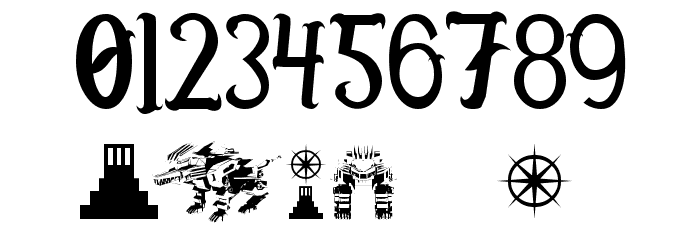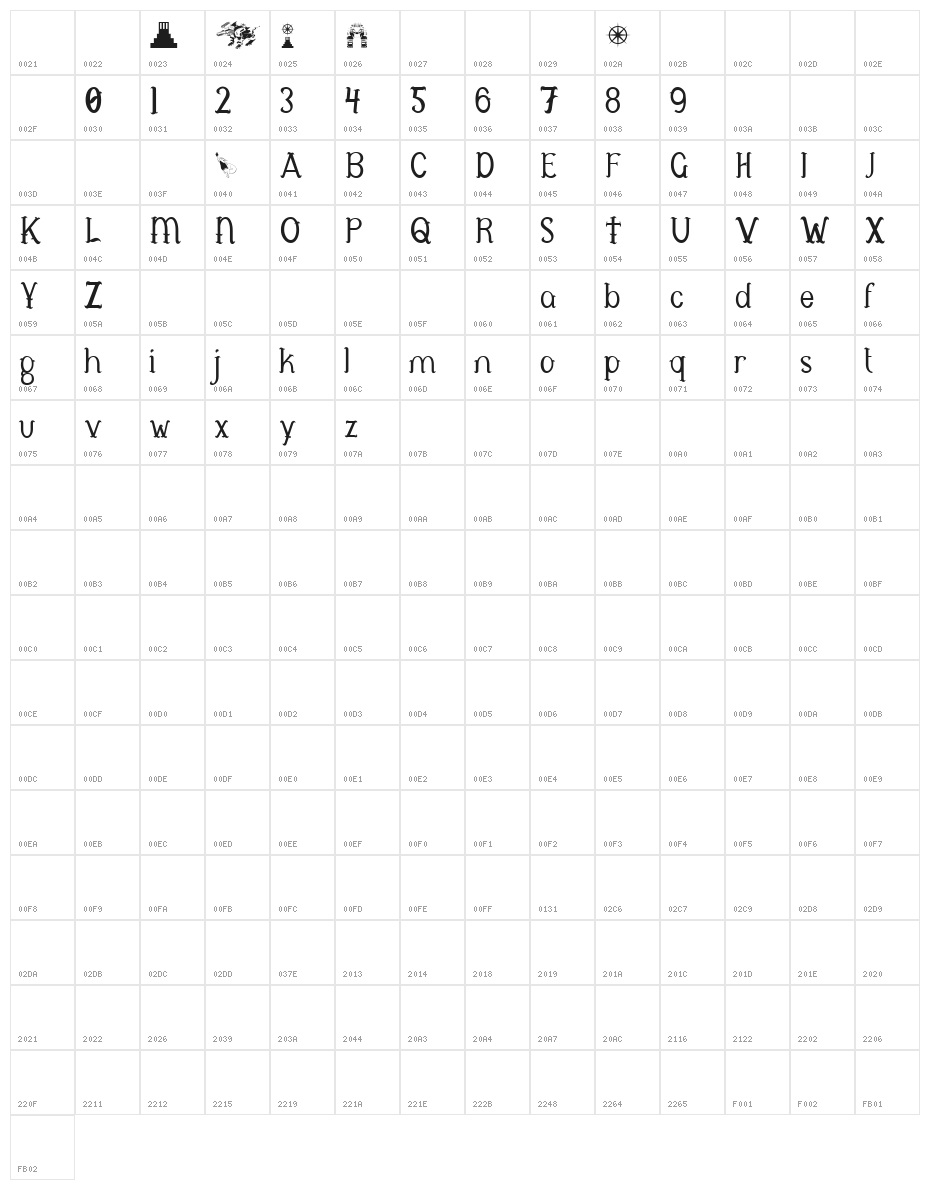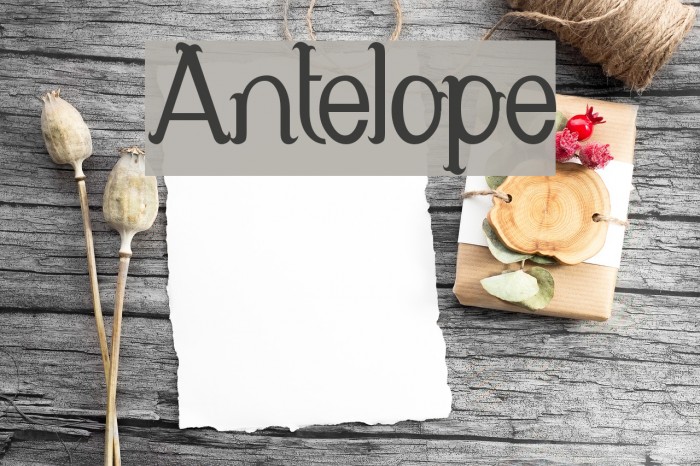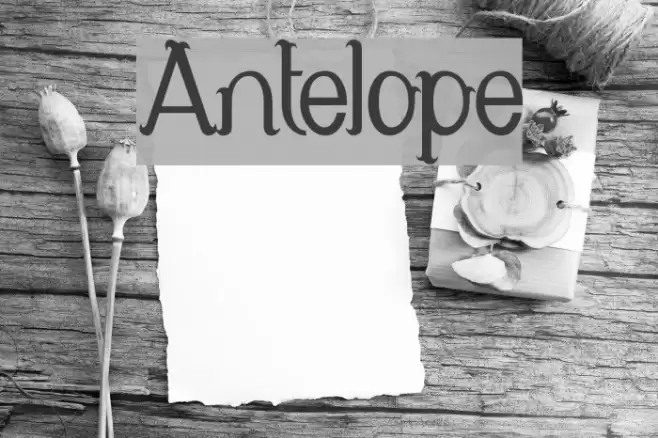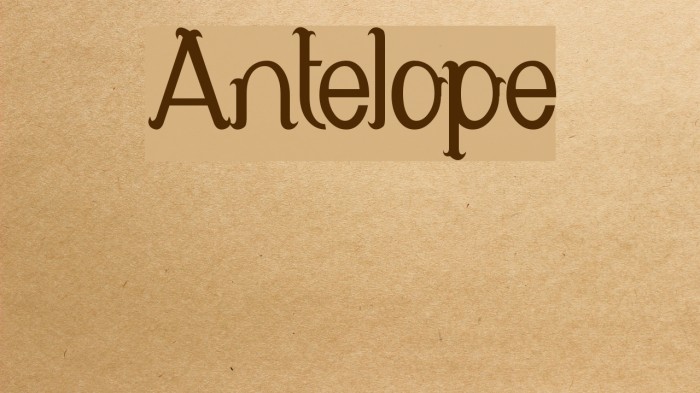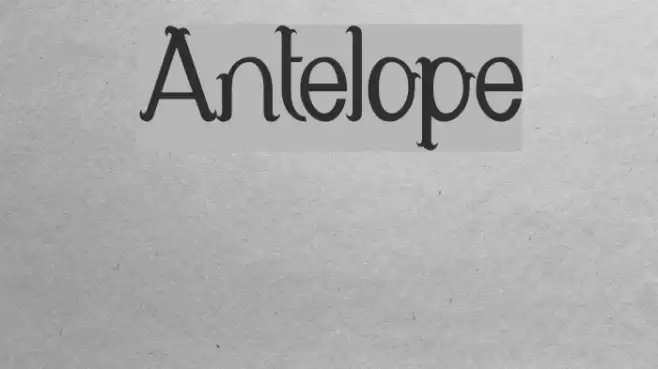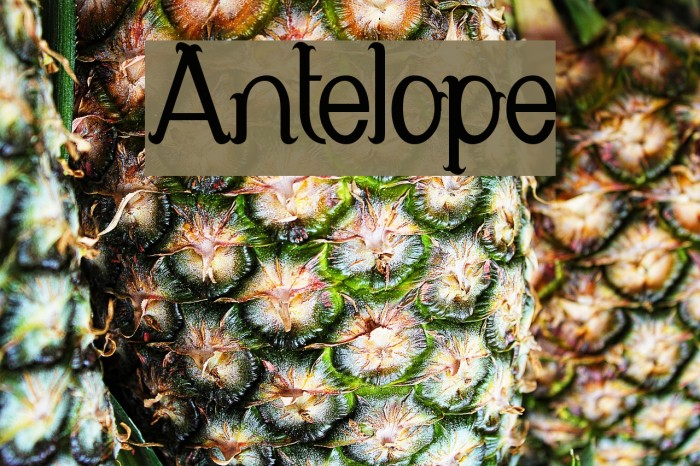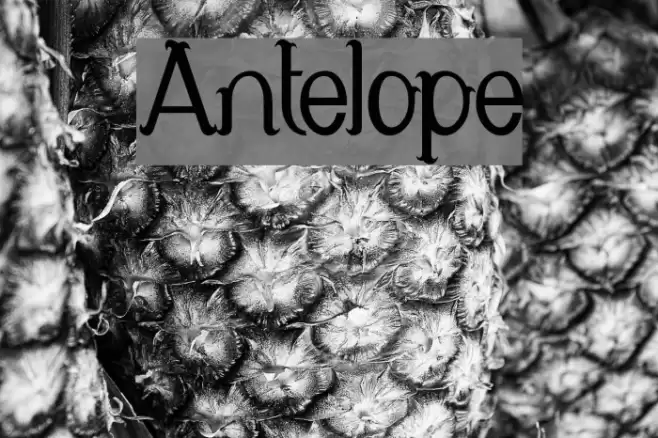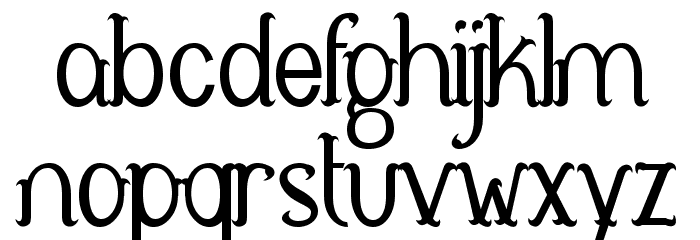
Antelope Font
Antelope Description
This font features a distinctive and decorative style with a unique blend of modern and vintage elements. The uppercase letters are bold and have a slightly elongated form, with intricate serifs that add a touch of elegance. The lowercase letters maintain a consistent style, offering a harmonious flow with the uppercase. Numbers are designed with a similar flair, ensuring readability while maintaining the font's artistic character. The special characters are creatively styled, enhancing the font's overall decorative appeal. This font is perfect for projects that require a touch of sophistication and creativity.